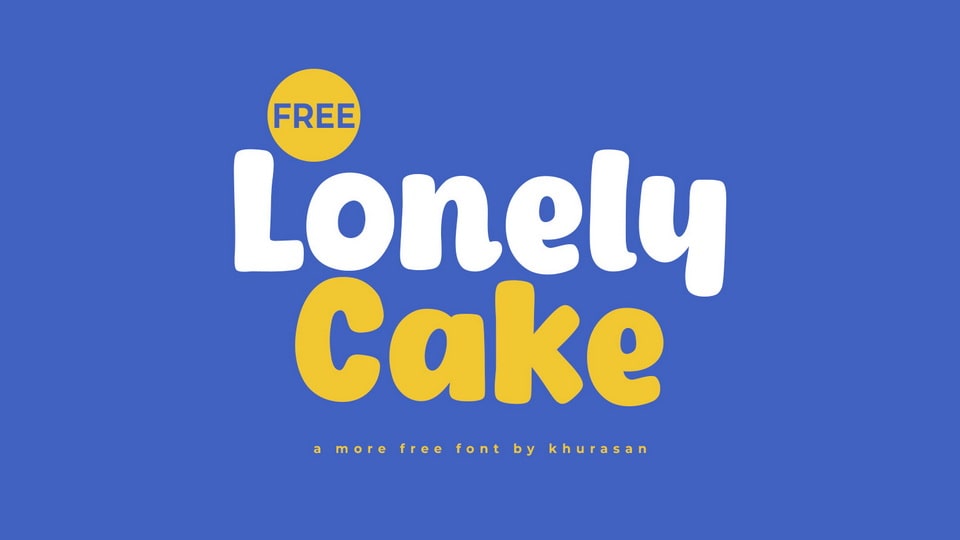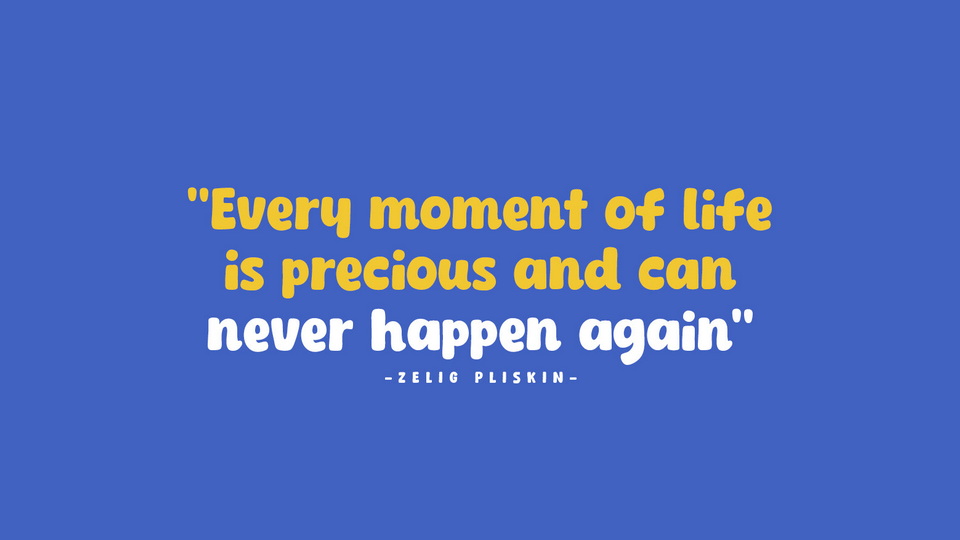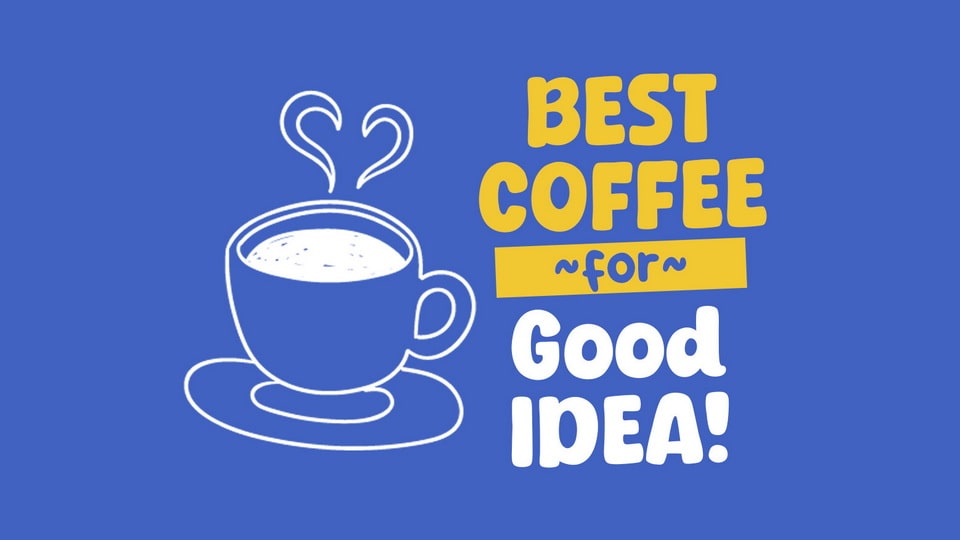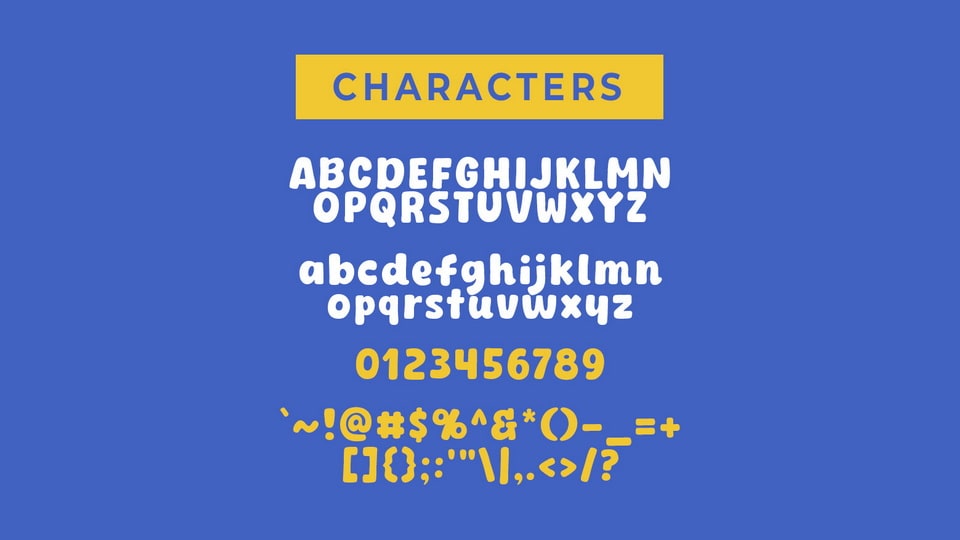
Lonely Cake is a bold and playful hand-crafted font that brings a burst of energy and fun to your designs. It features thick, dynamic letterforms with whimsical curves and lively details, capturing the essence of hand-drawn creativity.
Lonely Cake font is perfect for eye-catching posters, cheerful invitations, playful branding, and vibrant social media graphics, this font adds a sense of joy and boldness to your text. Its hand-crafted and vibrant nature makes it ideal for projects that seek to stand out with a unique and engaging style.